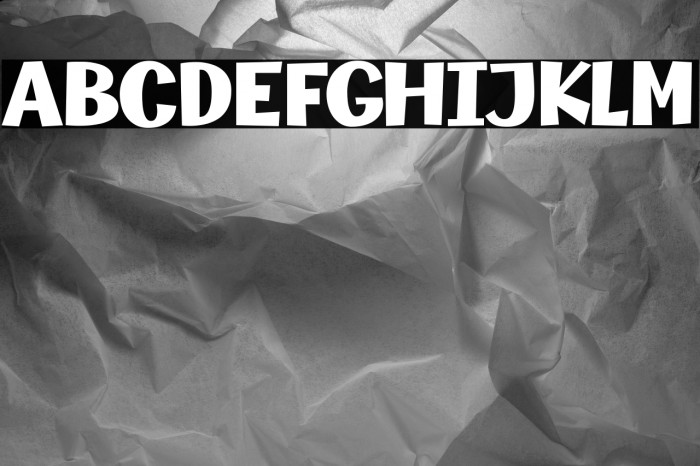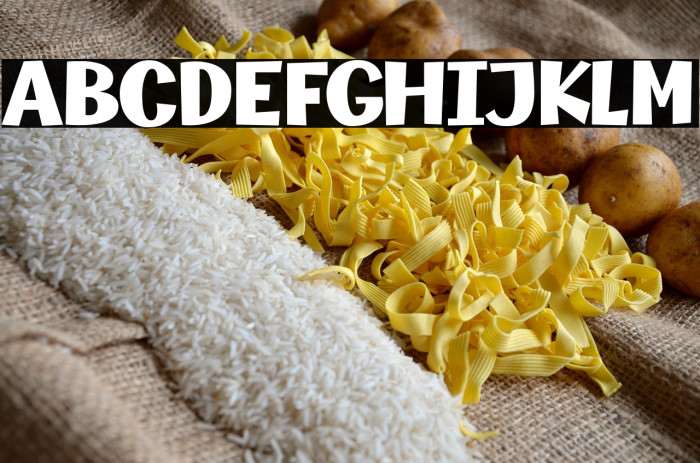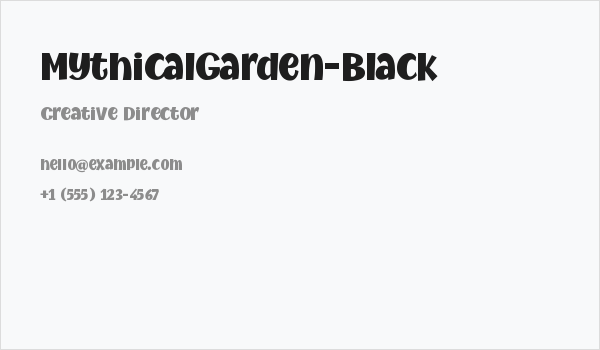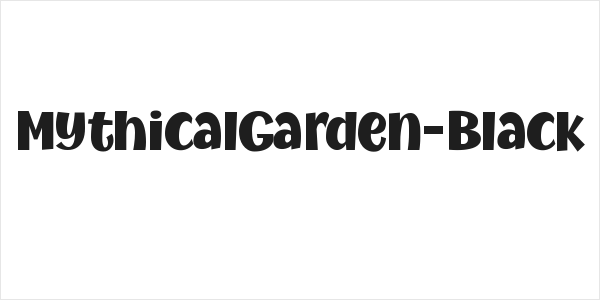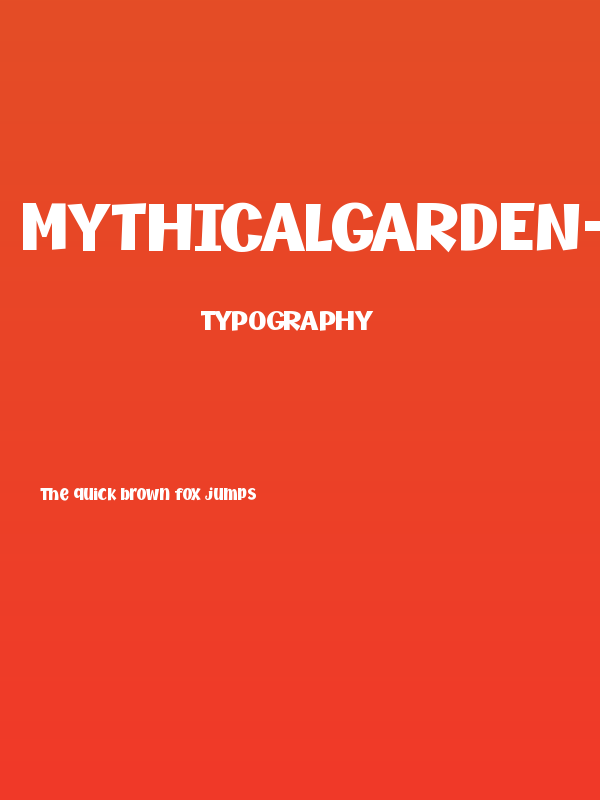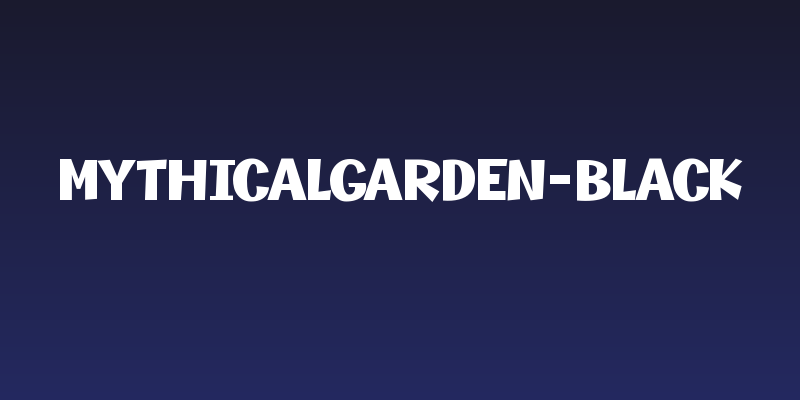
MythicalGarden-Black Font
MythicalGarden-Black Description
This font features bold, playful characters with a whimsical and decorative style. The uppercase letters are robust and dynamic, with unique angles and curves that give them a lively appearance. The lowercase letters maintain a consistent boldness, with rounded forms that add to the font's friendly and approachable feel. Numbers are equally bold and maintain the playful aesthetic, making them stand out. Special characters are creatively designed, fitting seamlessly with the overall style. The font's thick strokes and high contrast make it highly legible and impactful, perfect for drawing attention.
| Proposed Projects | Ideal for children's books, playful branding, posters, and any project requiring a fun and eye-catching typeface. |